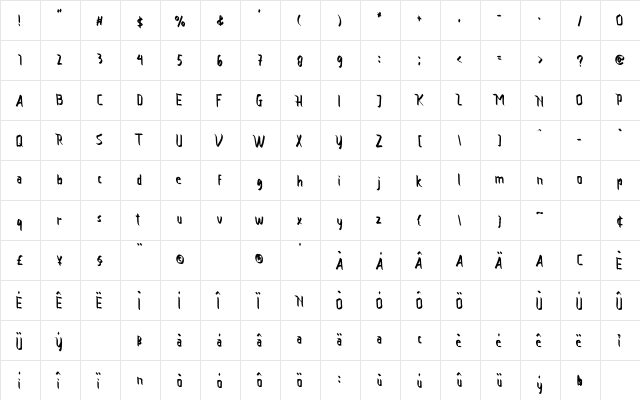
Vamfired Regular
Design Context for Vamfired Typeface
Vamfired is a composed and adaptable typeface that performs quietly and consistently across a wide range of design contexts.